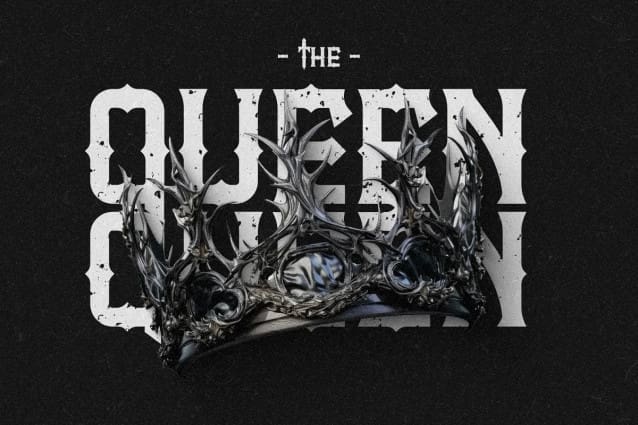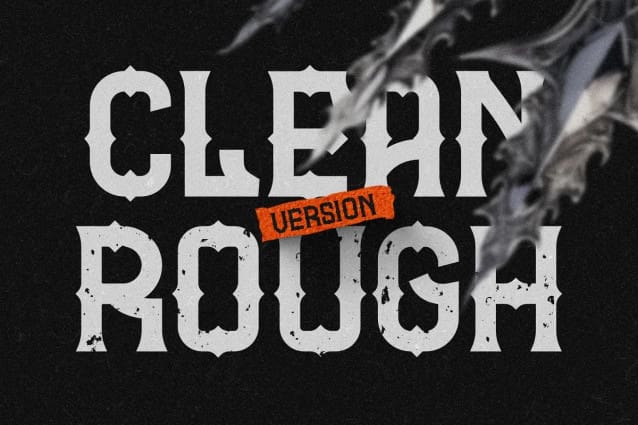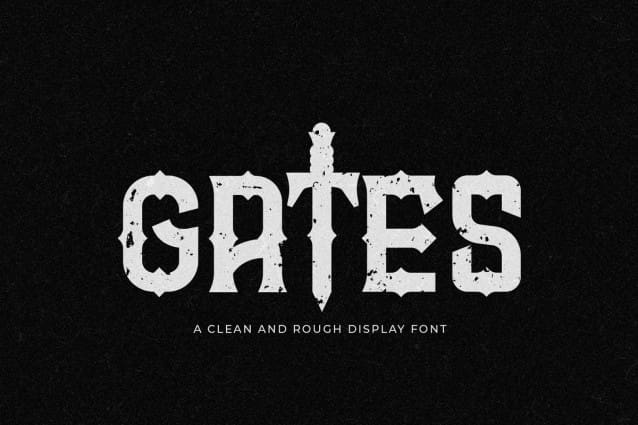
Gates Display Font
Gates Display Font, is available in a CLEAN AND ROUGH version. Make your design look better using this font
Numeral and Punctuations